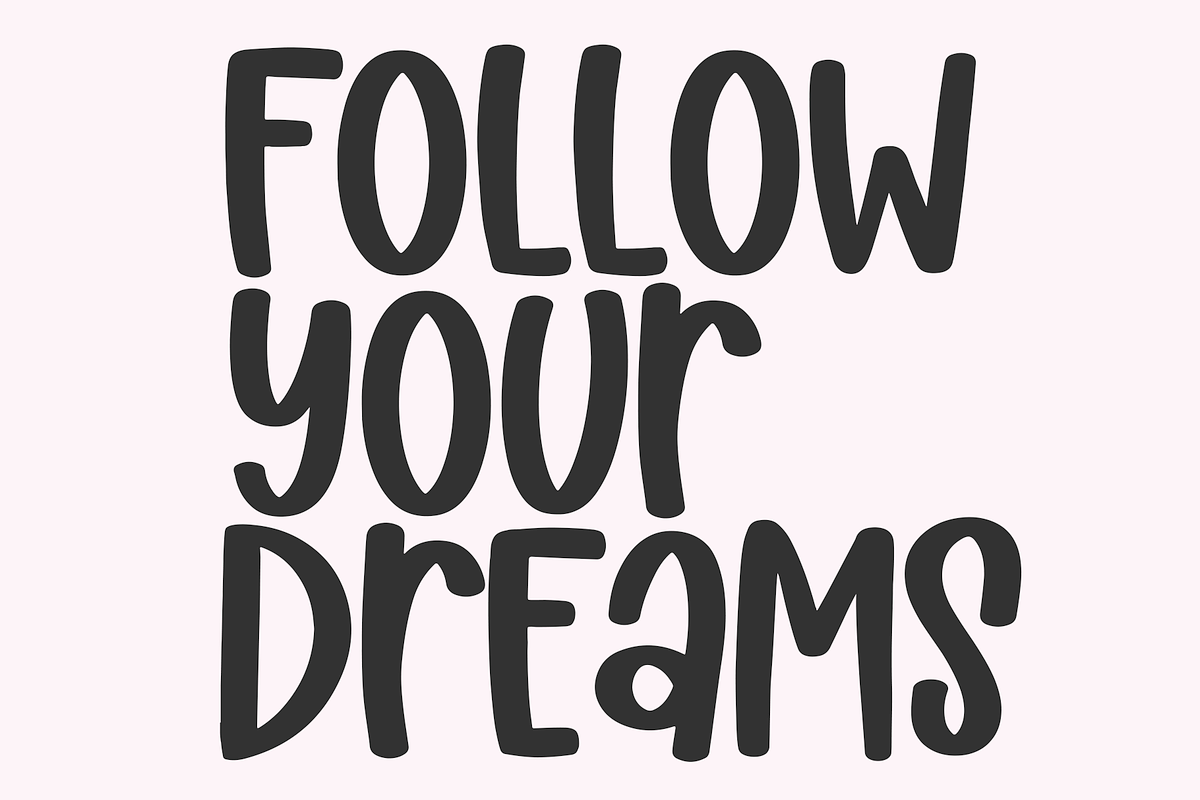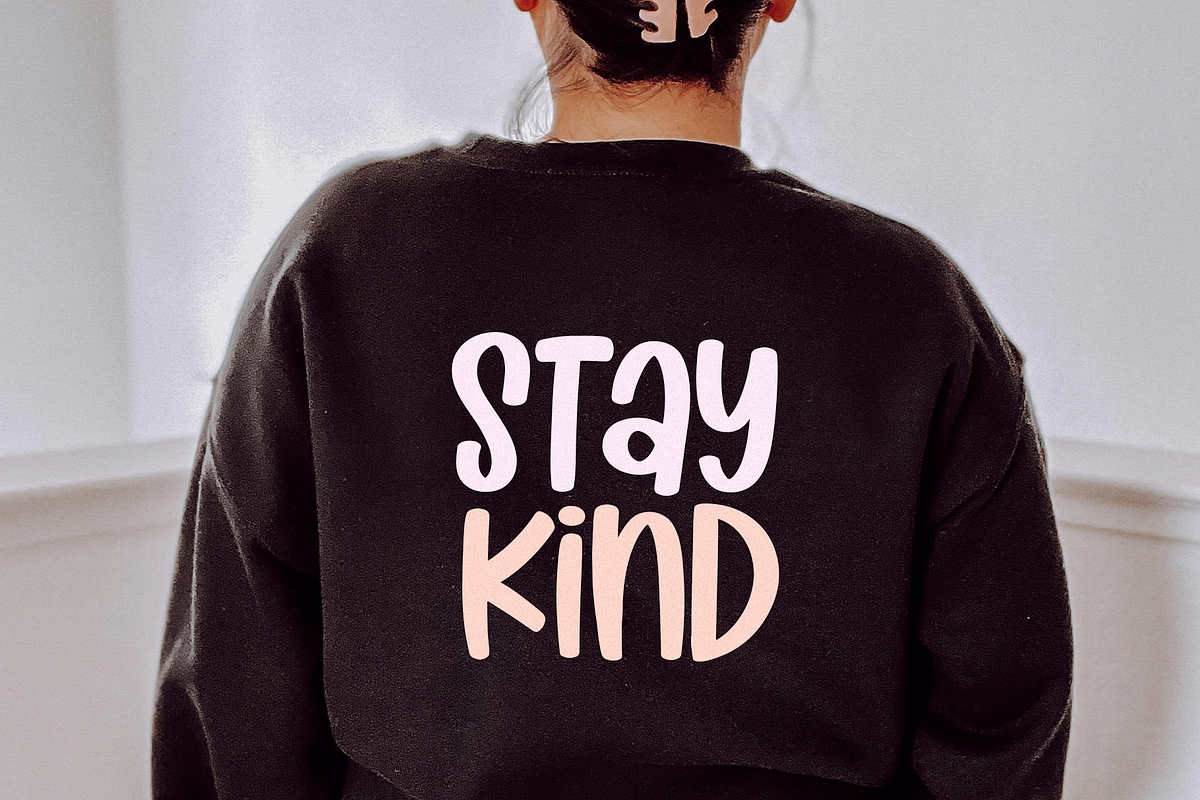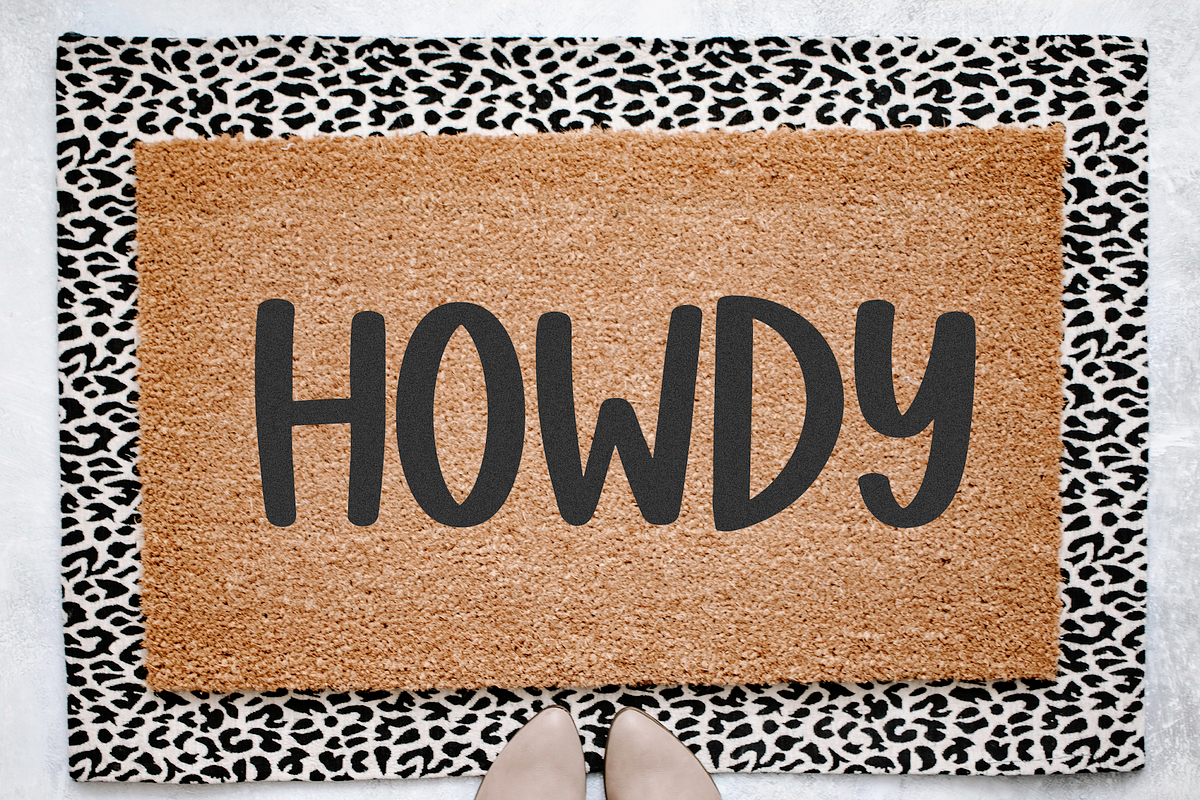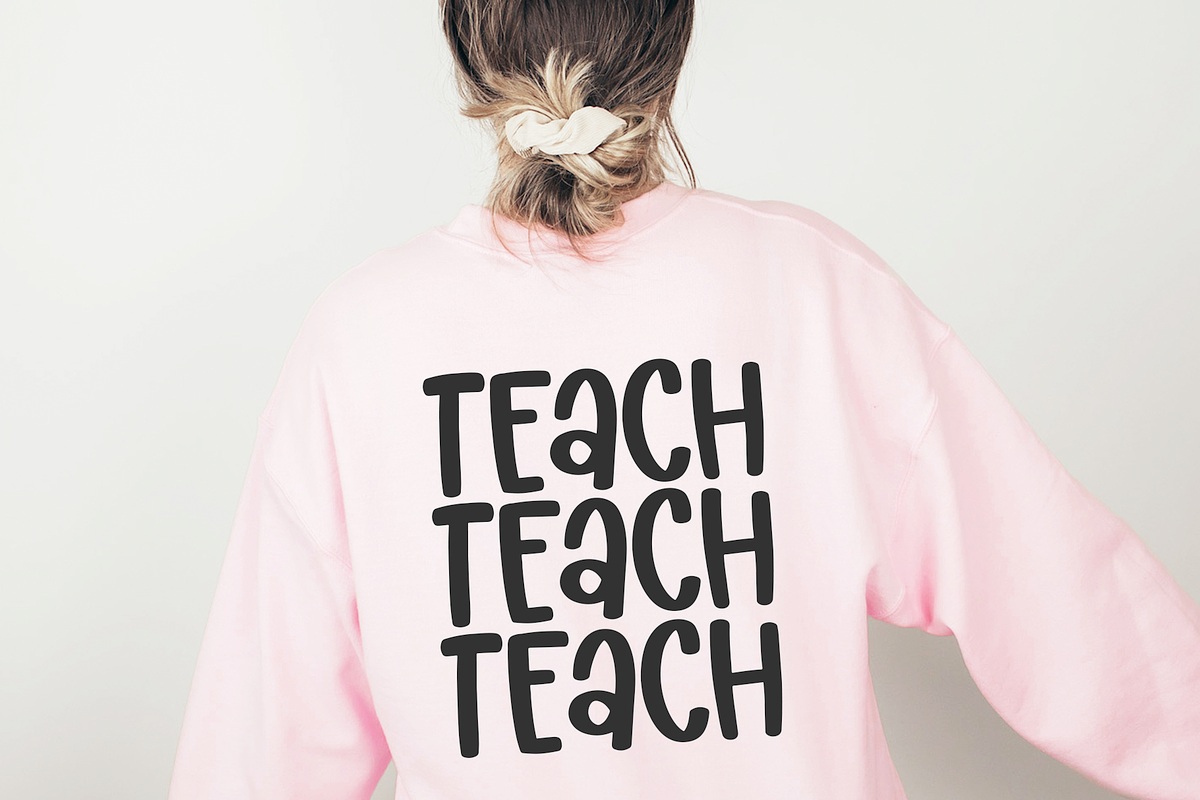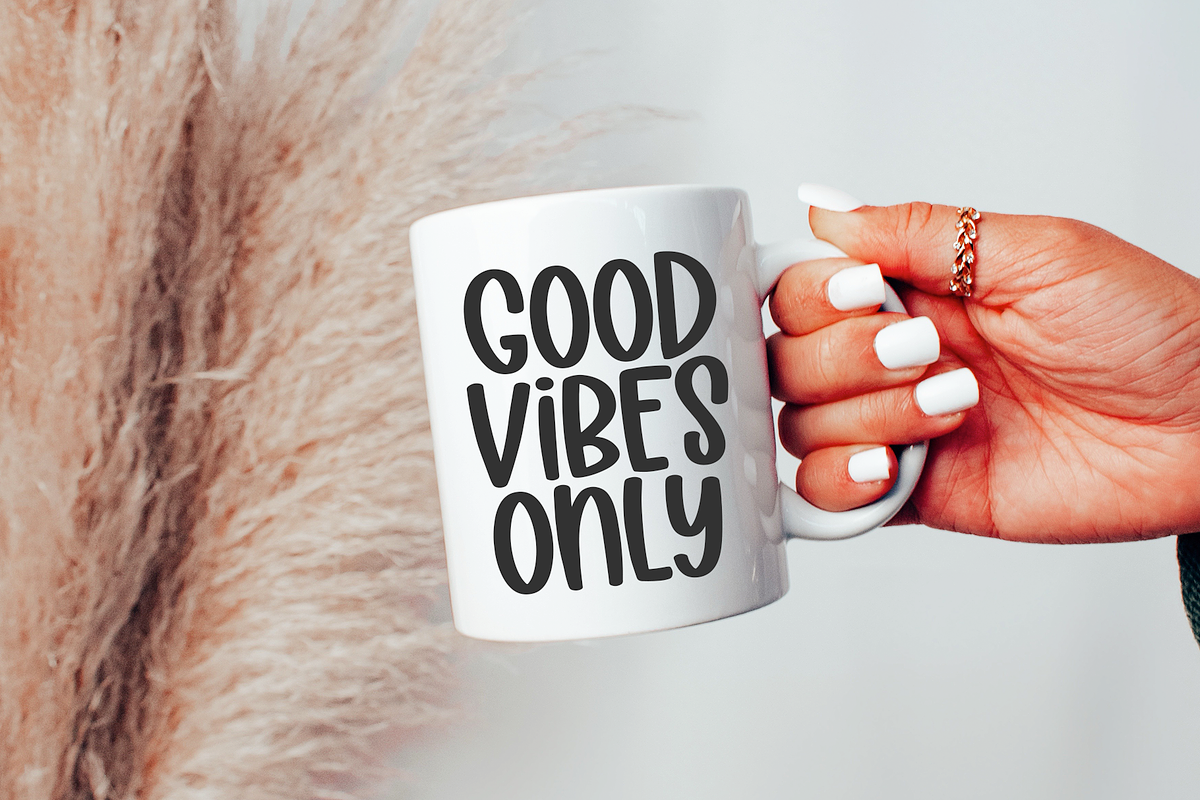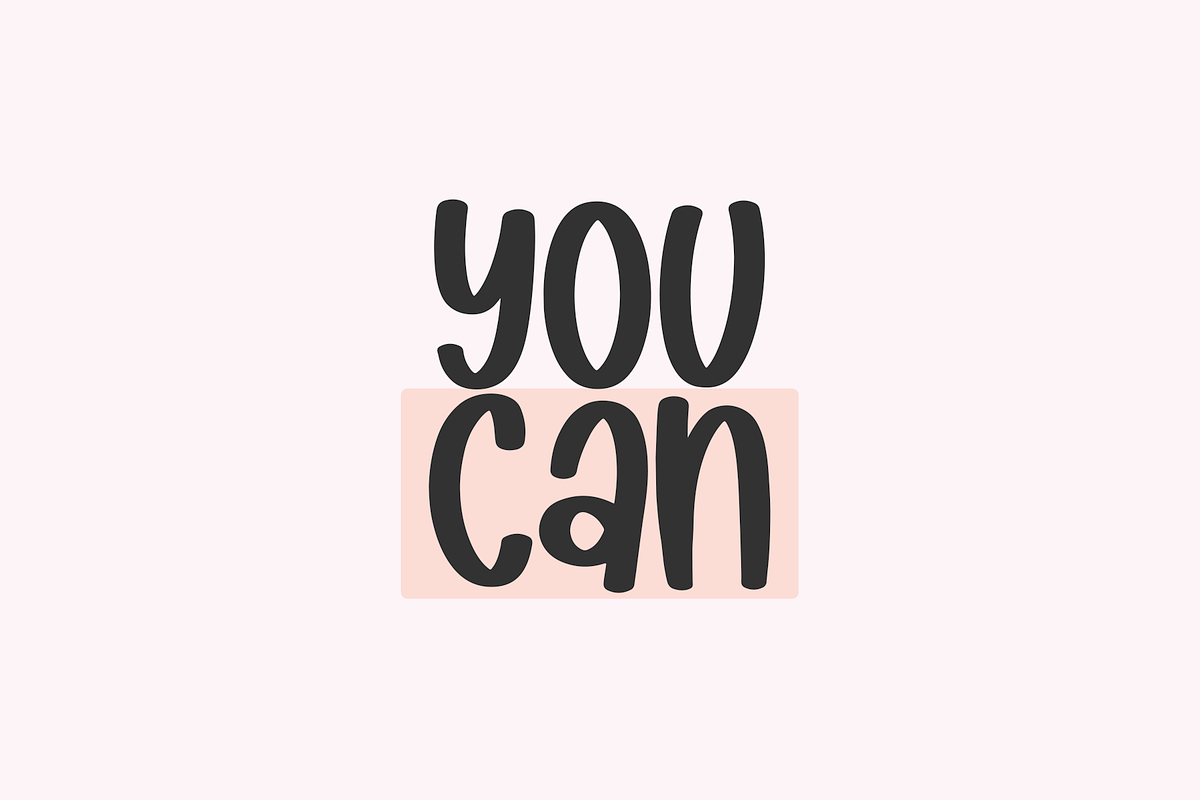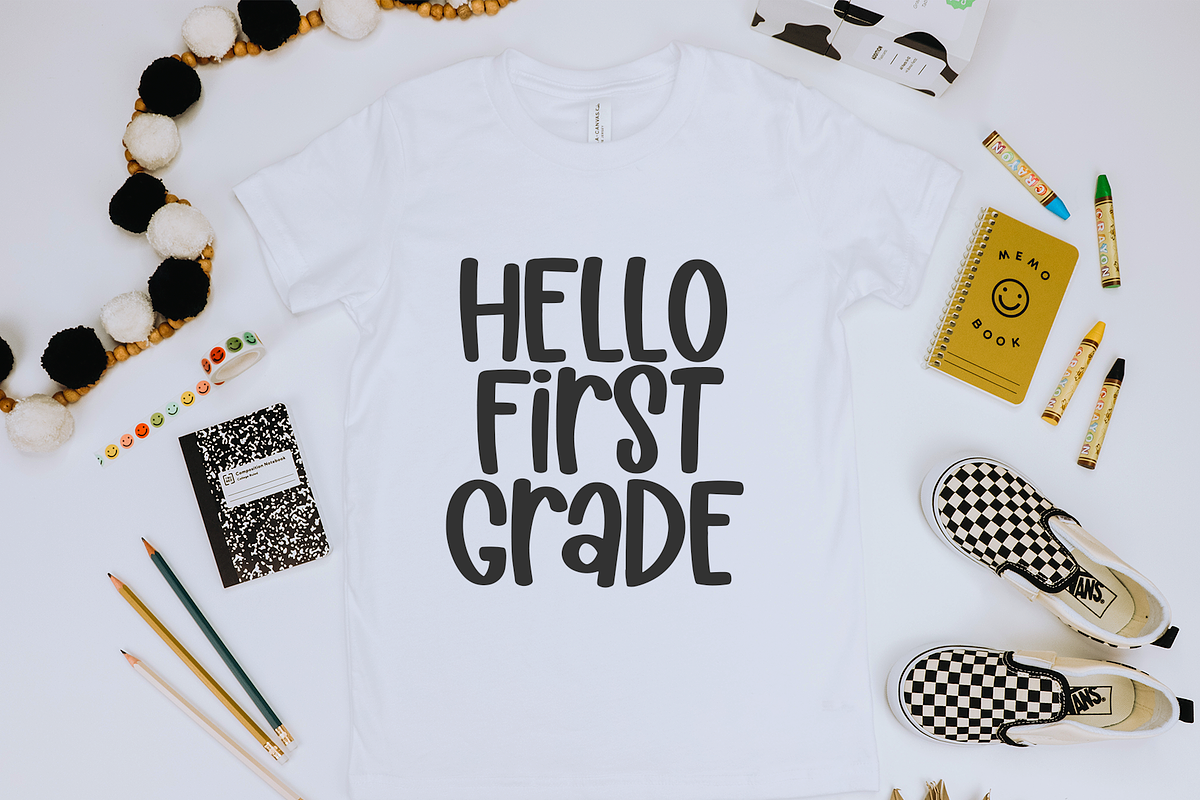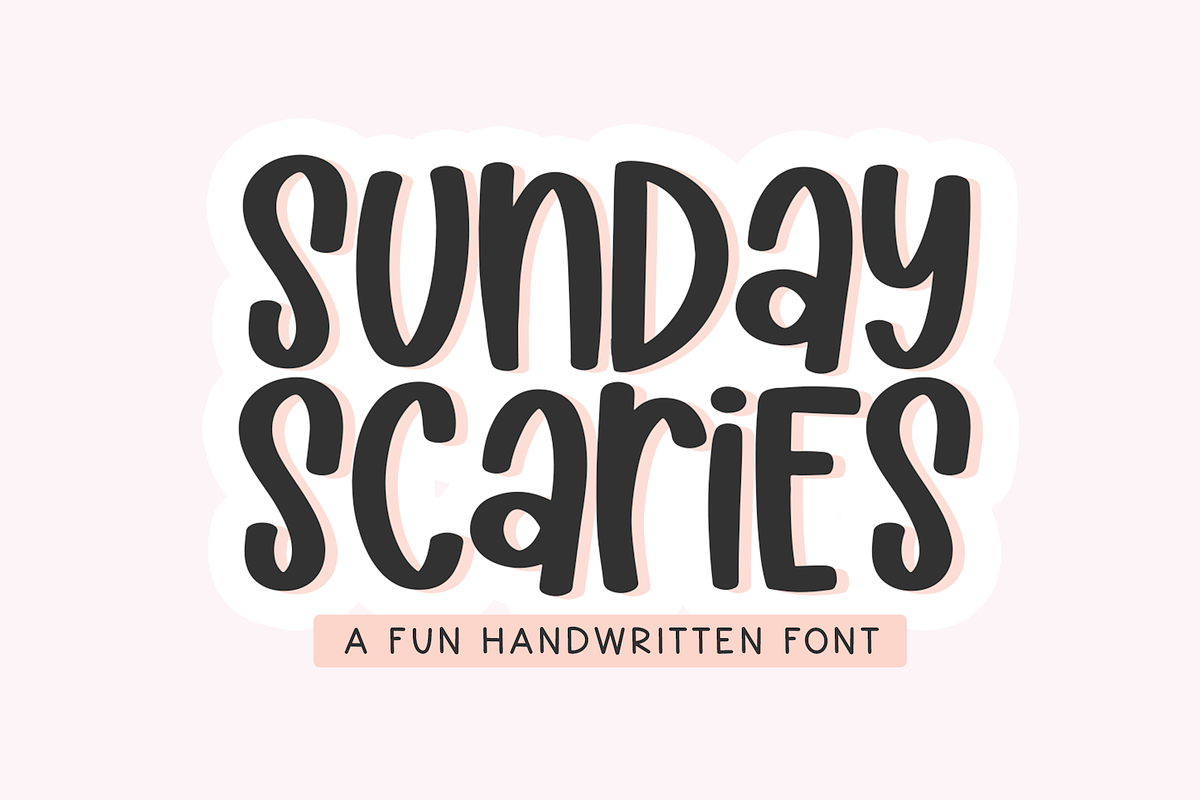
Sunday Scaries | Handwritten Font
Sunday Scaries is a fun handwritten font!
This font is smooth and bubbly - making it perfect for all of your cricut and crafting projects. Use this font for svg designs, shirts, mugs, logos, branding, decor and more!
Sunday Scaries | Handwritten Font by KA Designs fits naturally into Branding, posters, packaging, typography.